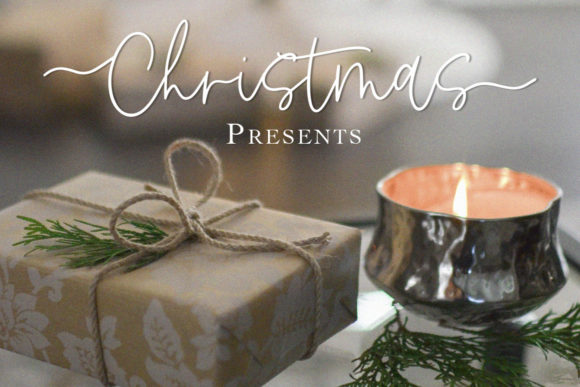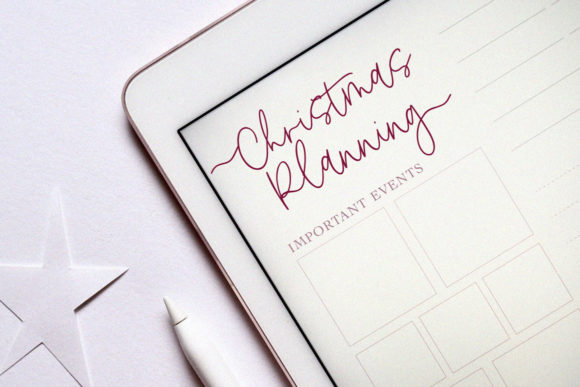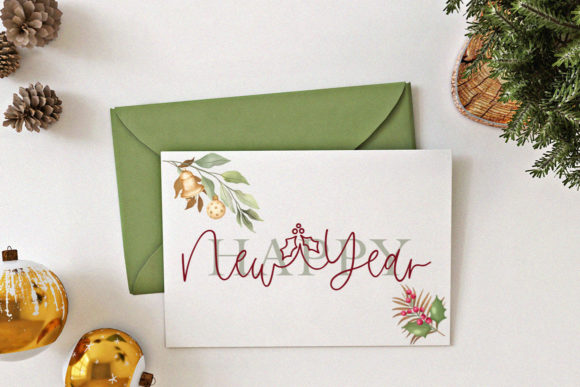
Introduction to Run Rudolf Font
Run Rudolf is a thin lettered and stylish script font.
Fall for its ravishing style and use it to create gorgeous wedding invitations, beautiful stationary art, eye-catching social media posts, and much more .